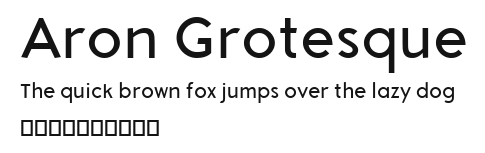
Aron Grotesque Preview
• Font Name: Aron Grotesque
• Designer: Valentino Coppi for Monocromo
• Manufacturer: Monocromo s.n.c.
Aron Grotesque.ttf is a modern, elegant sans-serif font designed for ultimate readability and visual harmony. Perfect for branding, headlines, web design, and print materials.